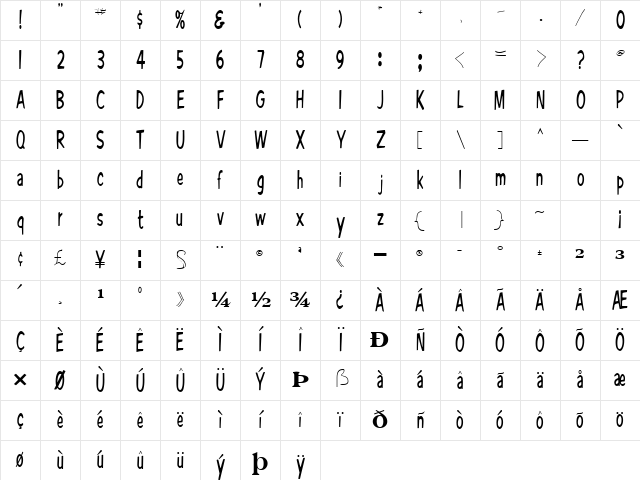
Mo Regular
Design Context for Mo
Mo is a composed and adaptable typeface that performs quietly and consistently across a wide range of design contexts.